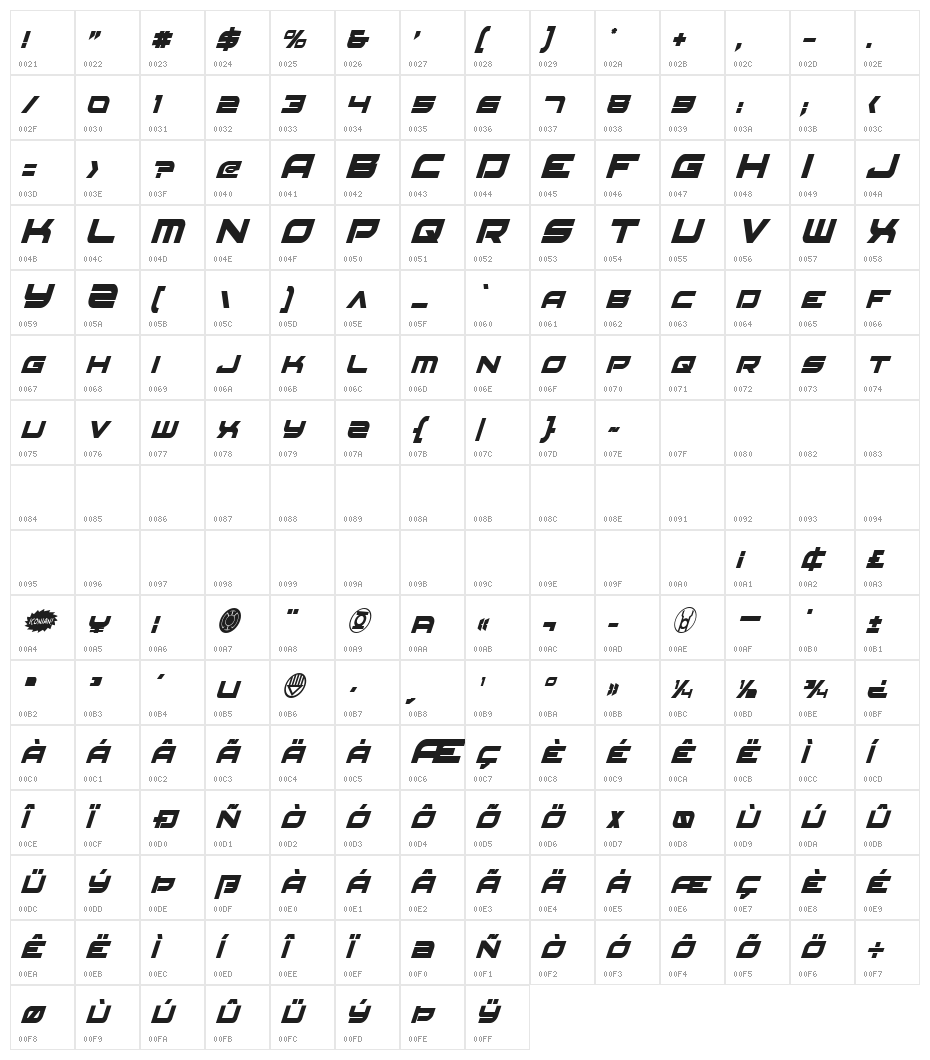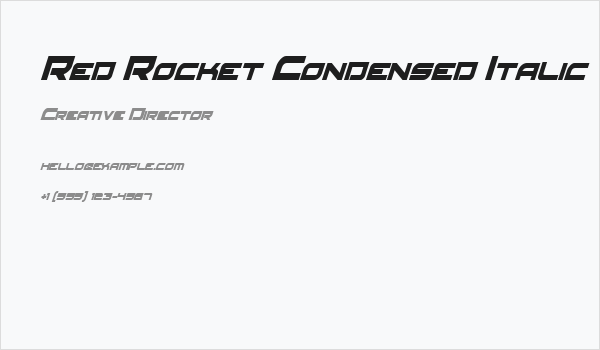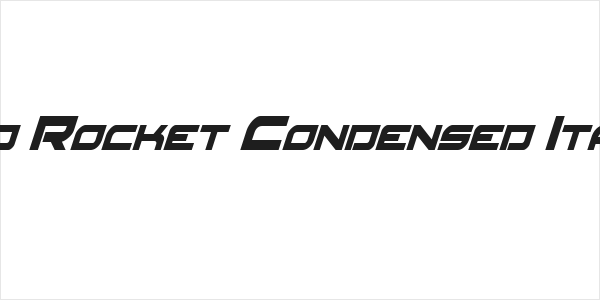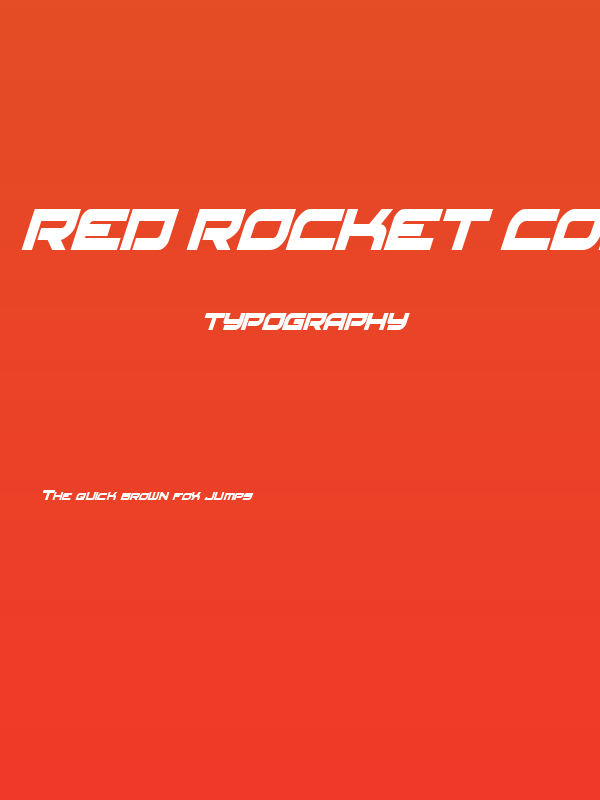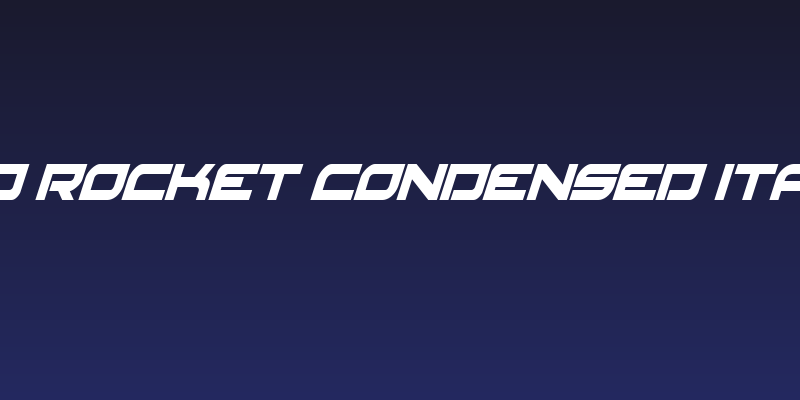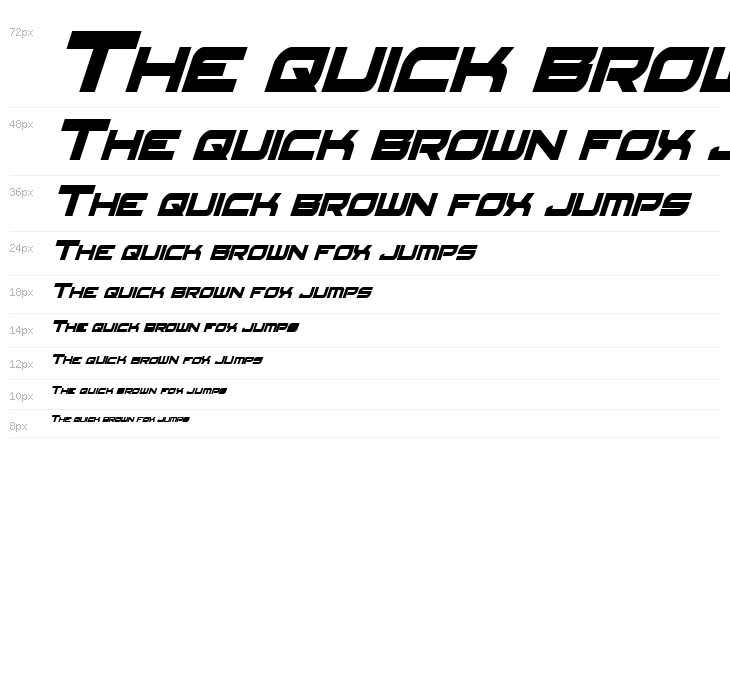
Red Rocket Condensed Italic Font
Red Rocket Condensed Italic Description
This font features a dynamic and futuristic design with a condensed and italicized style. The characters are sleek and angular, giving a sense of motion and speed. The uppercase and lowercase letters maintain a consistent slant, enhancing the italic effect. The numbers and special characters follow the same design principles, ensuring uniformity across all glyphs. The overall appearance is bold and impactful, making it suitable for attention-grabbing headlines and modern design projects.